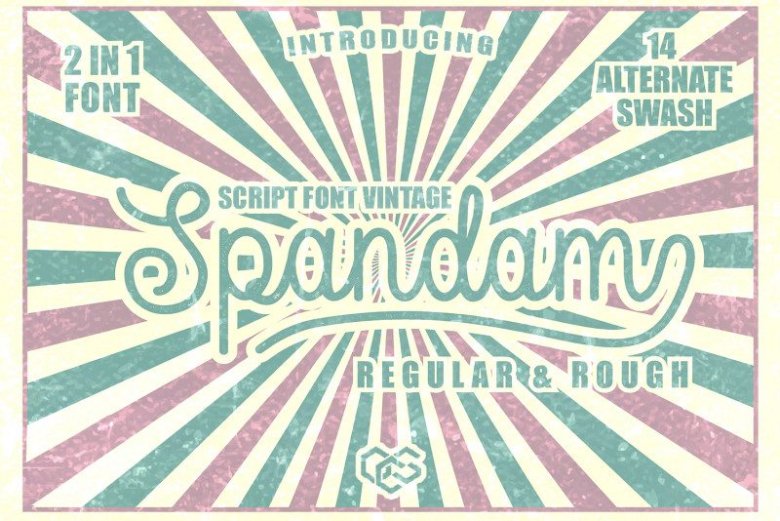
Spandam Vintage Font
Introducing the new vintage Spandam Font. Inspired by old style typography combined with modern typography style. Comes with an open type feature with many alternatives and swash endings, Spandam Vintage uses the best for Logotype, headings, covers, posters, logos, quotes, product packaging, headers, merchandise, social media & greeting cards and much more. This font also supports multi languages. To access alternative flying machines, you need a program that supports OpenType features such as Adobe Illustrator CS, Adobe Photoshop CC, Adobe Indesign and Corel Draw.